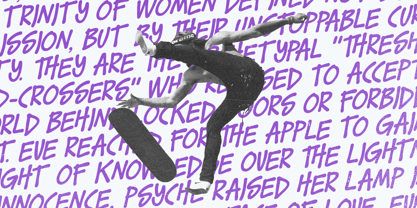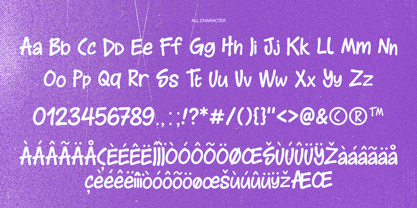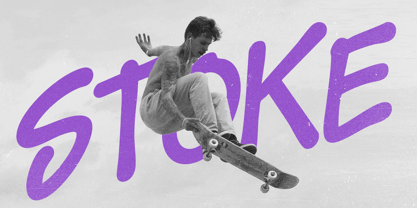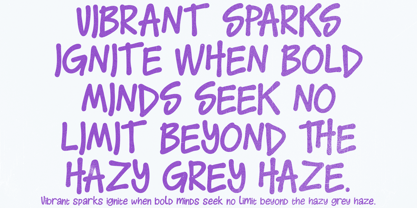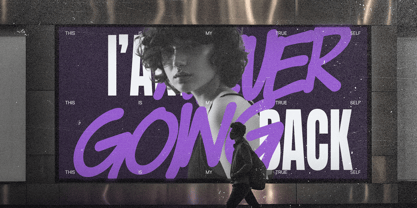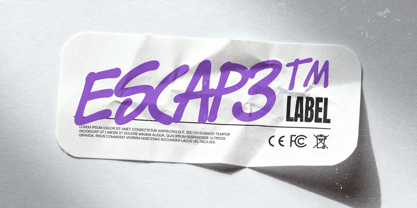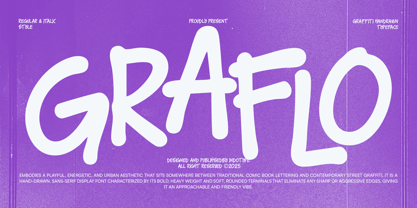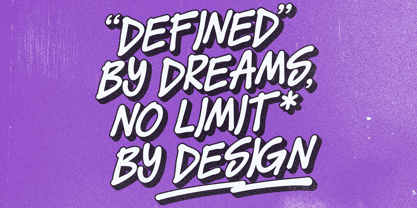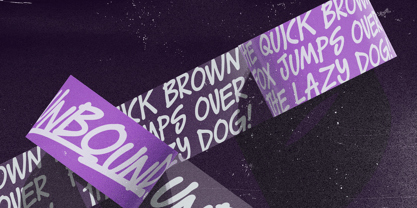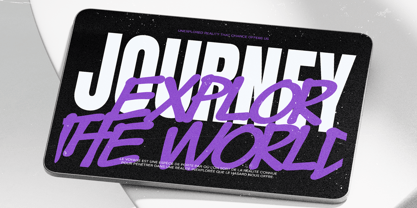
IT Graflo
por Indotype
La familia tipográfica IT Graflo fue diseñada por Dede Kurniawan y publicada por Indotype. IT Graflo contiene 2 estilos y opciones de paquete familiar. Más información sobre esta familia
Graflo is a vibrant, hand-drawn display font that lives at the intersection of classic comic book fun and contemporary street art energy. Characterized by its bold, heavy weight and soft, rounded terminals, it eliminates sharp edges to create an approachable and friendly urban aesthetic. The slight irregularities in stroke width and baseline alignment give it an authentic, bouncy rhythm that mimics natural, energetic handwriting. Embodying a playful and energetic spirit, Graflo is perfect for projects that need to feel youthful, creative, and effortlessly cool. Available in both Regular and Italic styles, it’s ideal for streetwear branding, event posters, creative logos, social media graphics, and any design that aims to capture a dynamic, handcrafted urban vibe without the aggression of traditional graffiti. • Ideal for: Streetwear Branding, Event Posters, Creative Logos, Social Media Graphics, YouTube Thumbnails, Comic Art, Playful Packaging. • Classification: Display, Handwritten, Graffiti, Sans-Serif. • Attributes: Playful, Energetic, Urban, Friendly, Bold, Handcrafted, Approachable.
Diseñadores: Dede Kurniawan
Fundición: Indotype